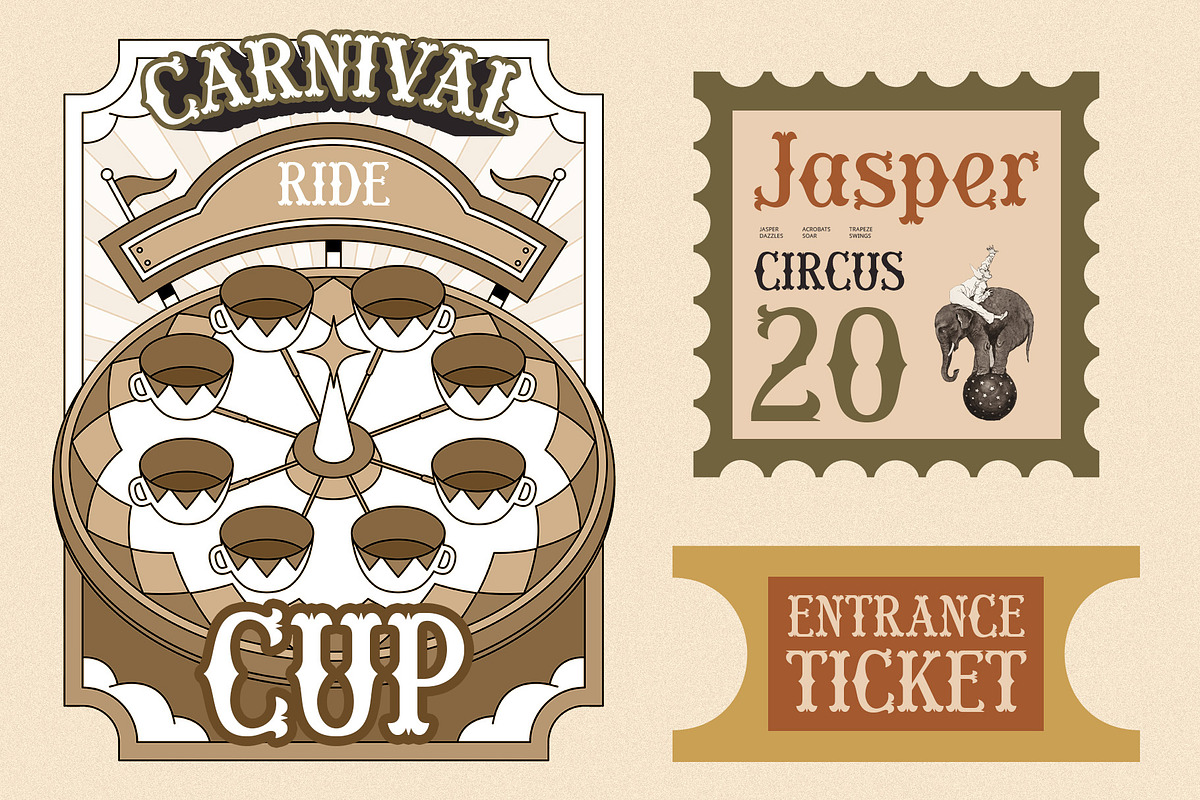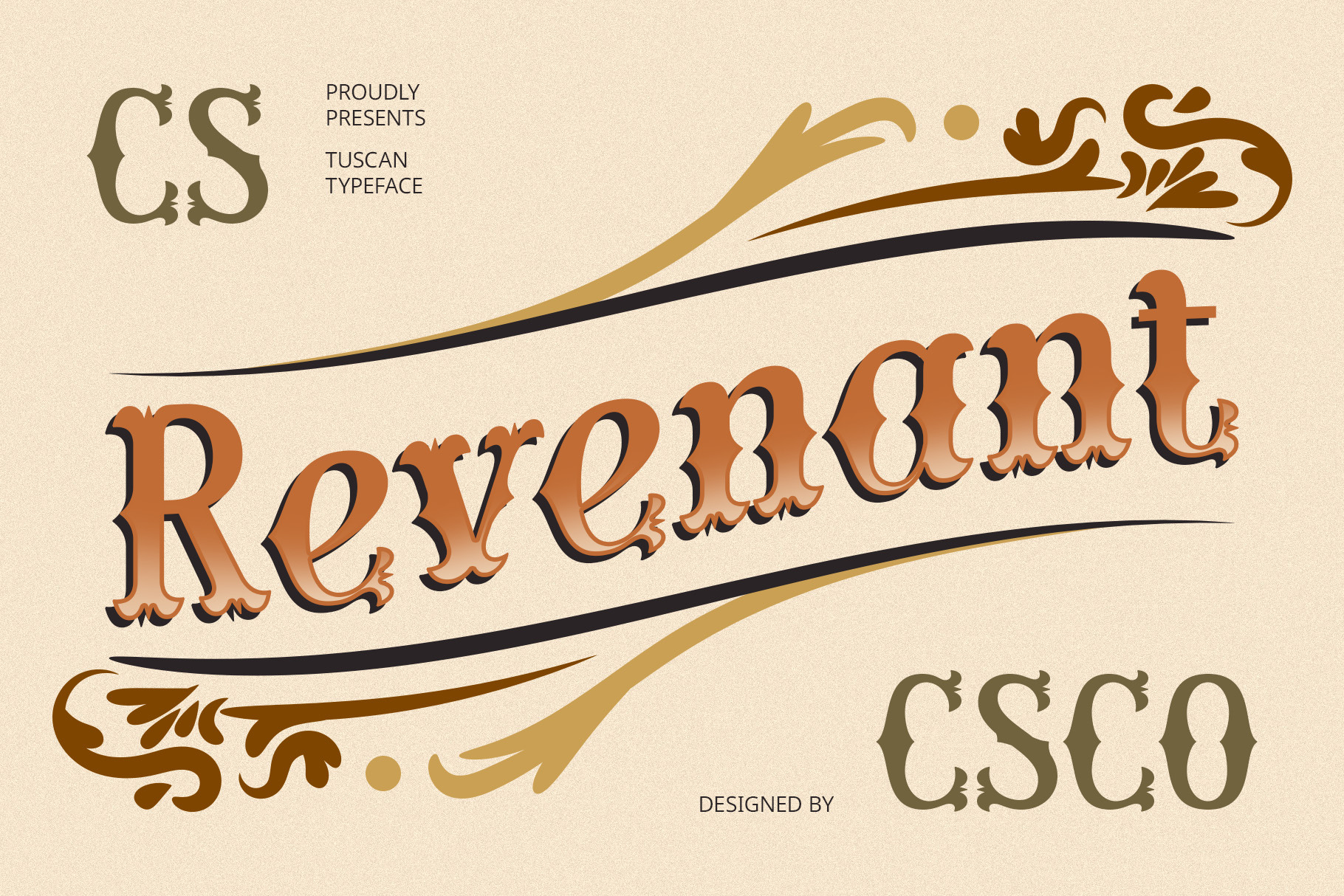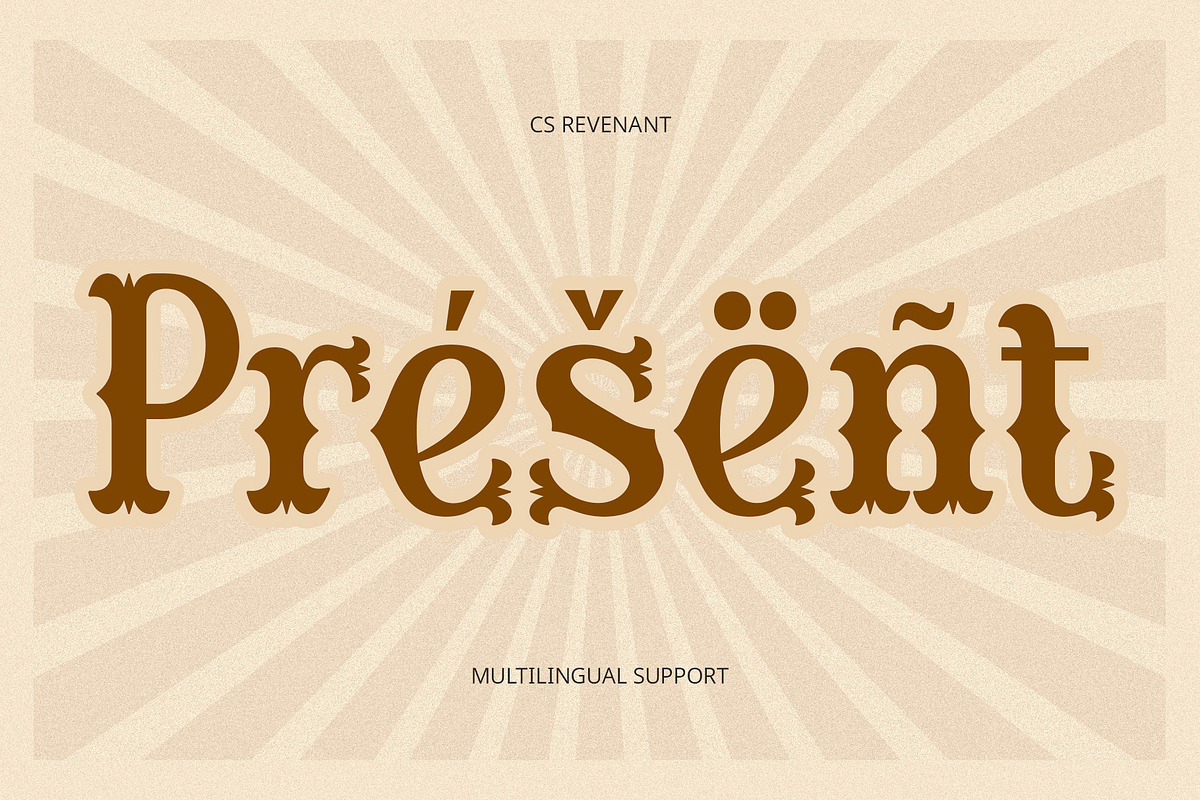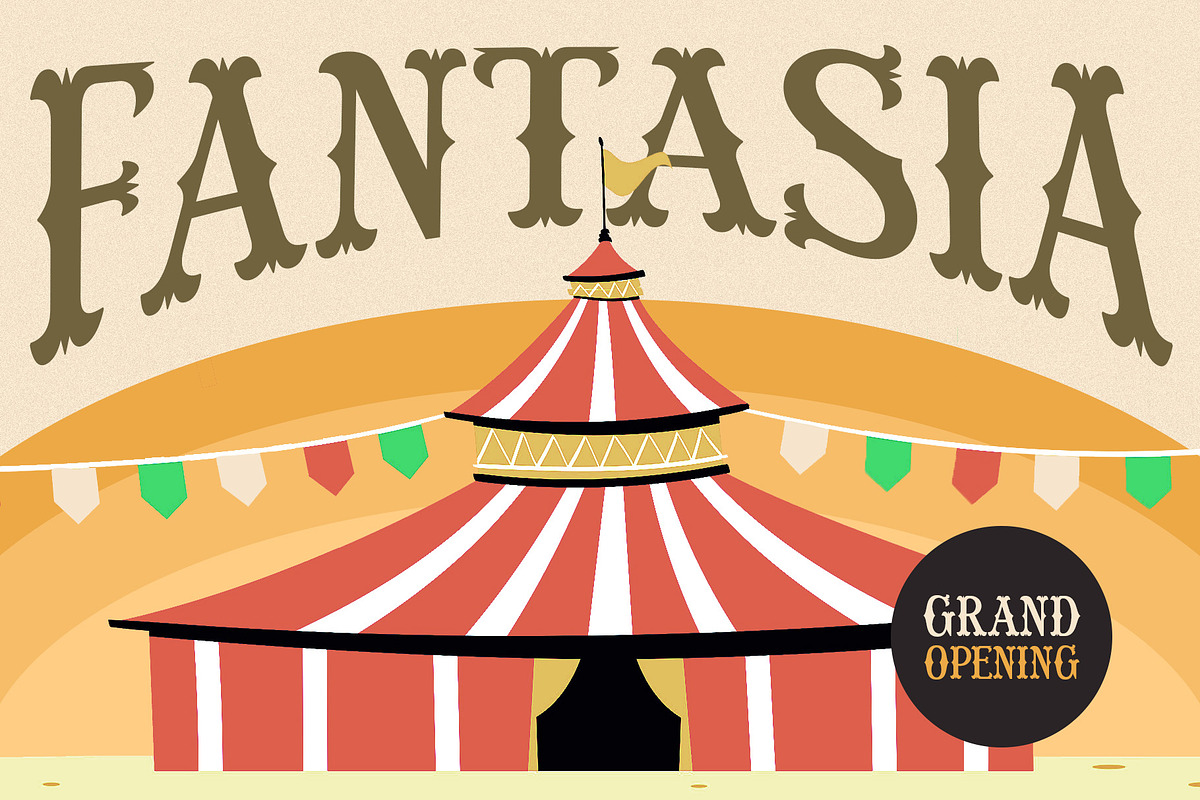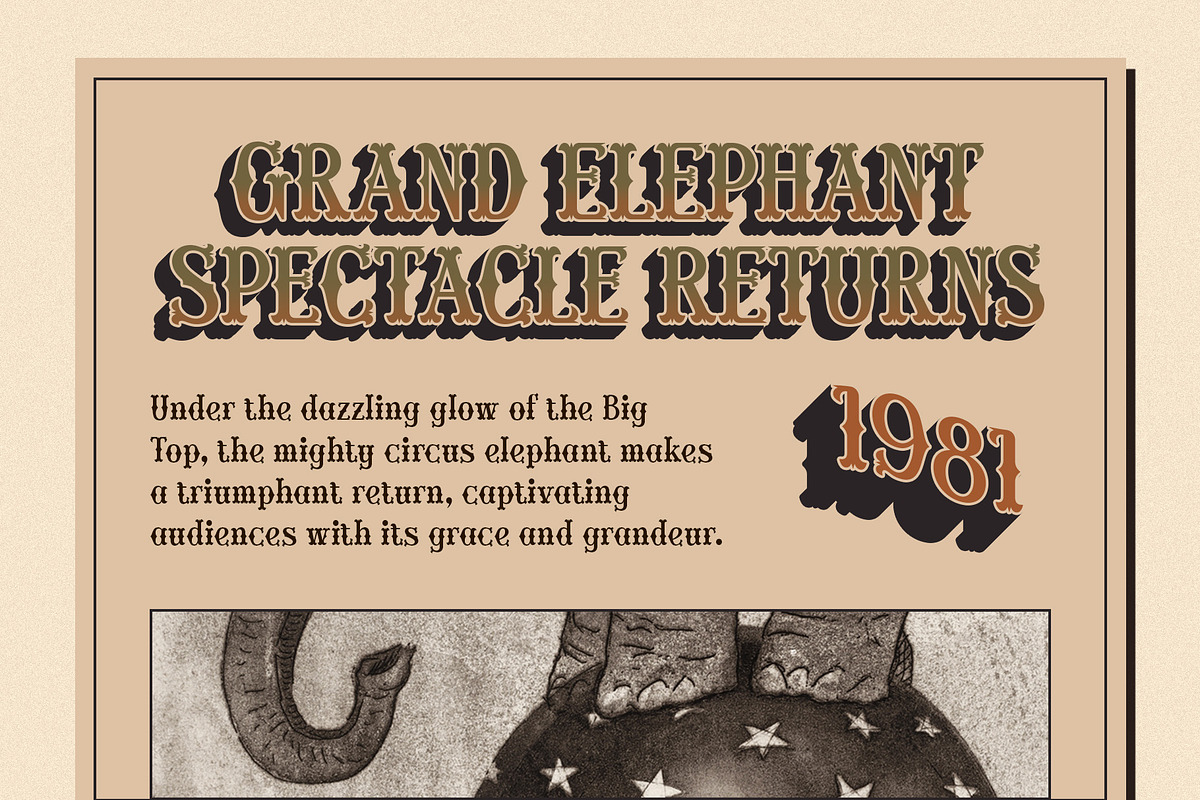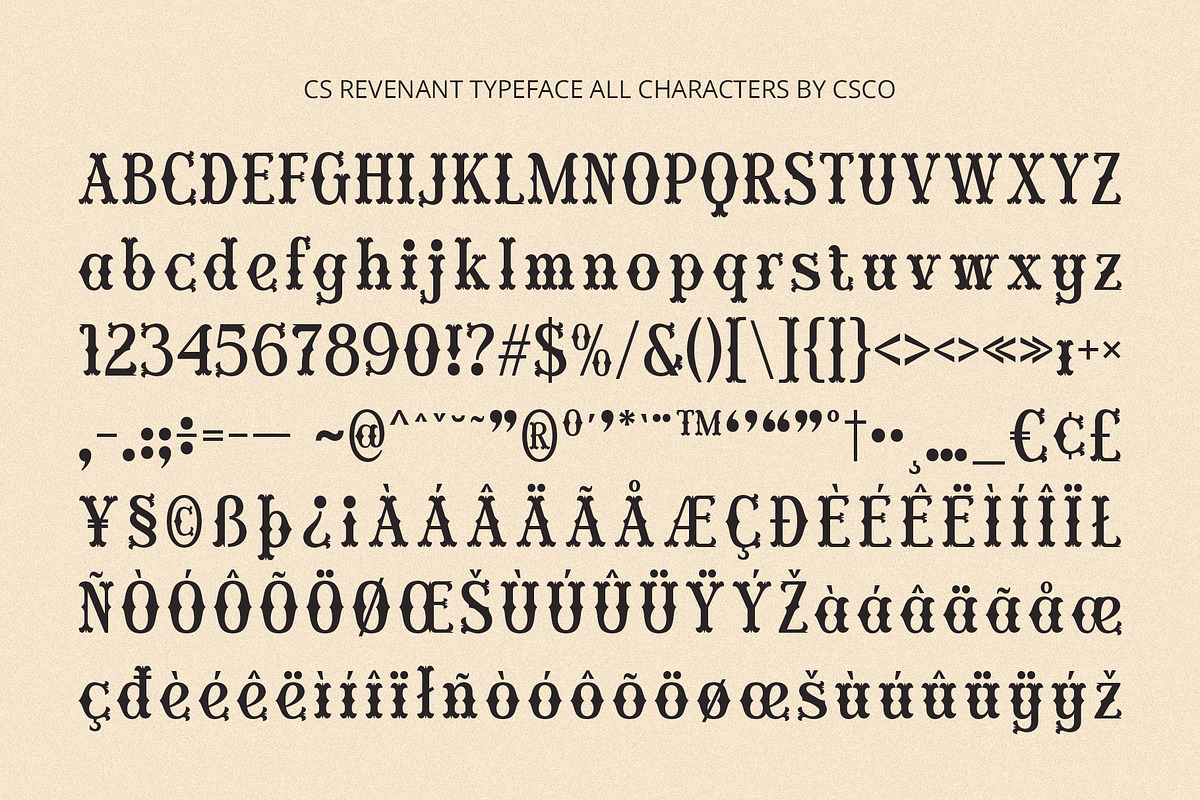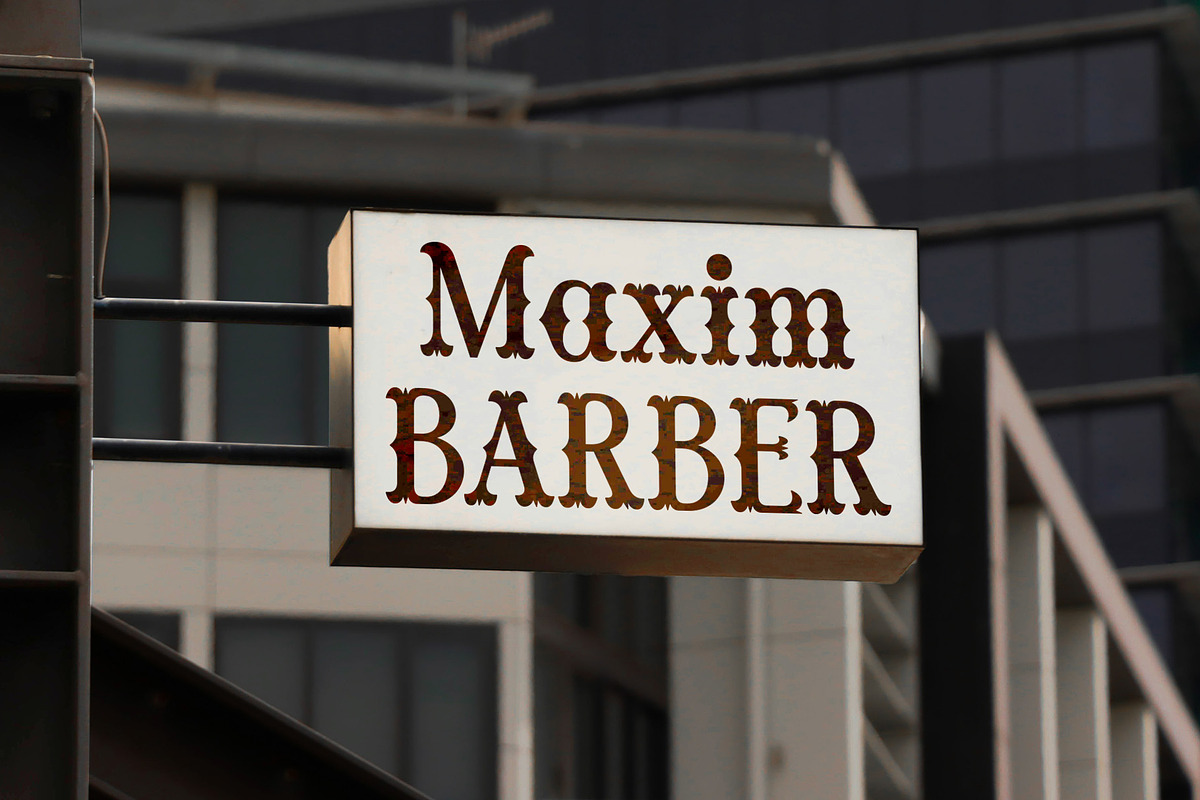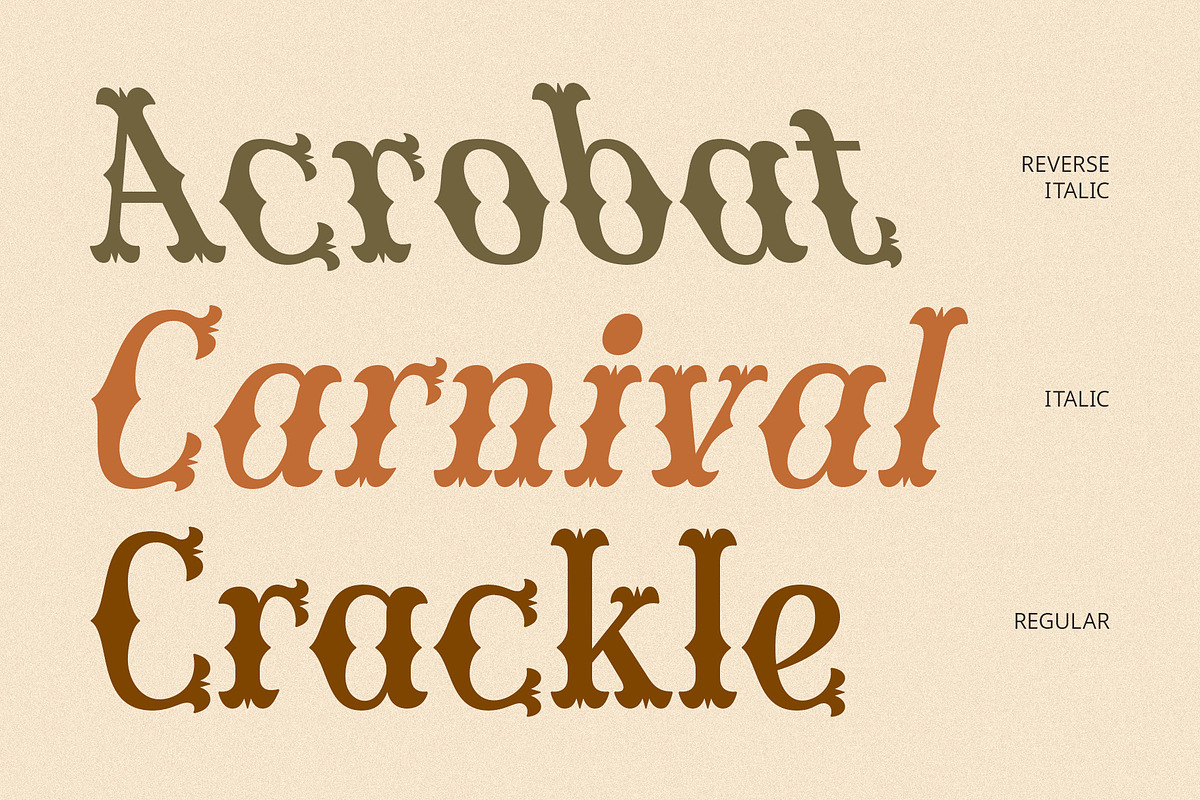
CS Revenant – Tuscan Font
CS Revenant – Tuscan Font: Ornate, Vintage, and Bold
A Classic Tuscan Display Serif CS Revenant is a striking Tuscan display serif font, known for its bifurcated serifs, decorative detailing, and strong presence. Rooted in 19th-century typography, it carries a sense of nostalgic charm and artistic sophistication, making it ideal for bold display designs, vintage-inspired branding, and ornate headlines.
Rich in Character and Historical Elegance With its high contrast, dramatic letterforms, and artistic flourishes, CS Revenant embodies the grandeur of antique posters, circus playbills, and old-world advertising. Its ornate structure and bold stance make it perfect for luxury branding, theatrical titles, and any project that demands an expressive, nostalgic aesthetic.
Versatile for Vintage and Experimental Designs Whether used in classic packaging, editorial headlines, or eclectic logos, CS Revenant delivers a sense of sophistication and flair. It seamlessly adapts to both refined and eccentric styles, offering a unique balance between historical elegance and modern adaptability.
Perfect for Impactful and Decorative Typography From Victorian-themed projects to bold artistic statements, CS Revenant thrives in high-impact display settings. Its elaborate details and striking contrasts ensure that every design stands out with a touch of luxury, drama, and old-world charm.
- CS Revenant Regular
- CS Revenant Italic
- CS Revenant Reverse Italic